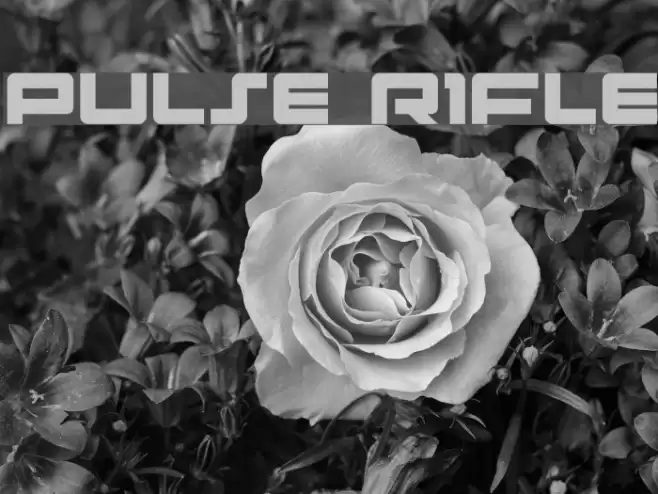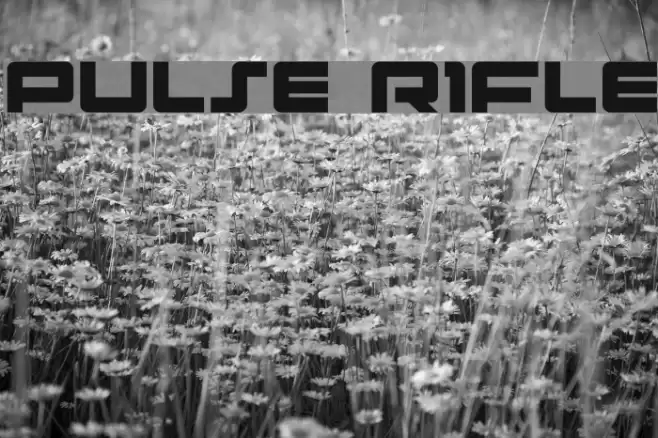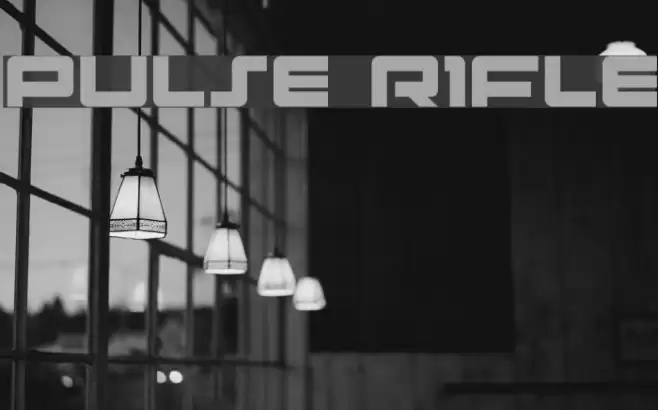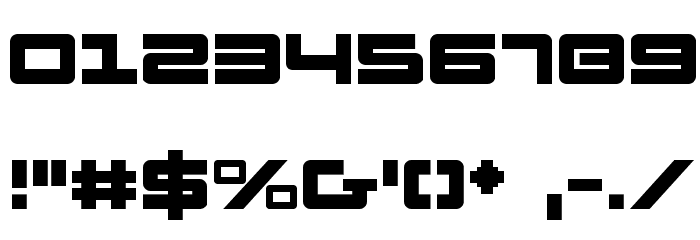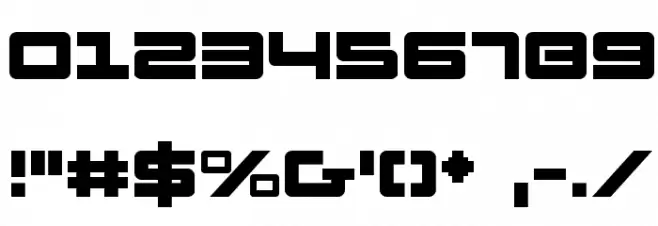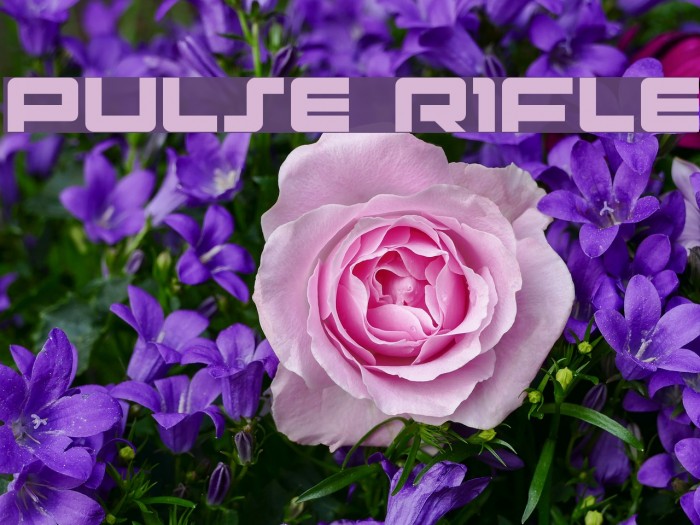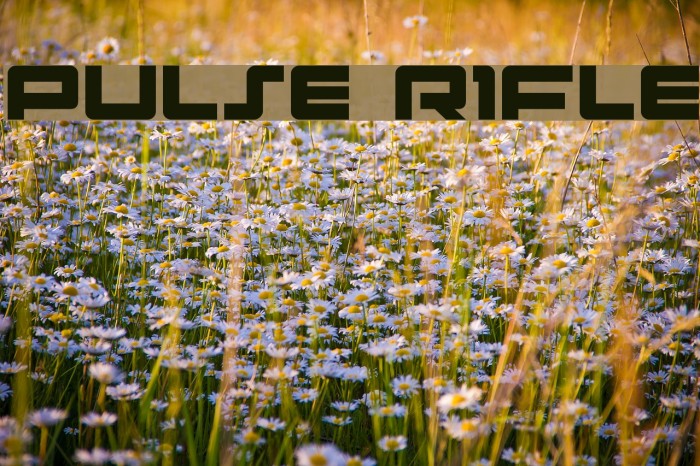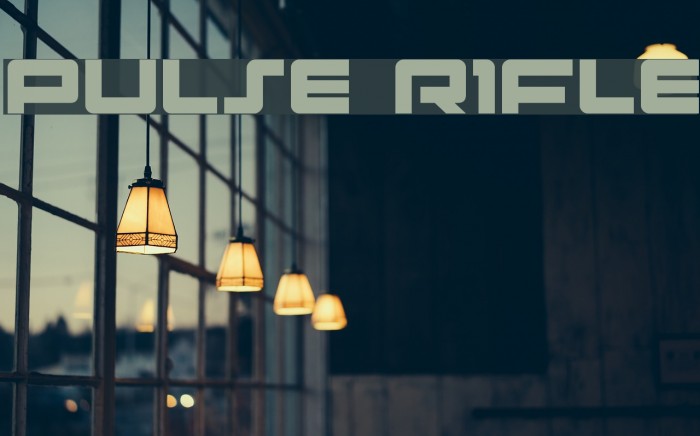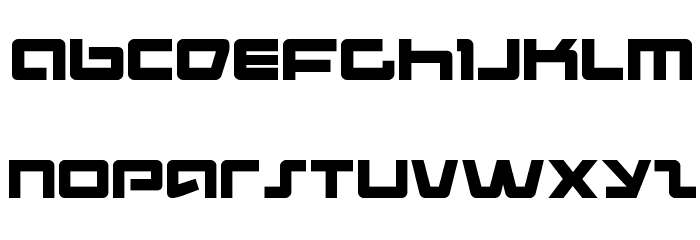
Pulse Rifle Font
Pulse Rifle Description
This font features a futuristic and geometric design, characterized by its bold and blocky letterforms. The characters are constructed with straight lines and sharp angles, giving it a mechanical and industrial feel. The uppercase and lowercase letters maintain a consistent style, with a unique approach to certain characters like 'A', 'R', and 'G' that incorporate cut-out sections, adding to its modern aesthetic. The numerals and special characters follow the same design principles, ensuring uniformity across the font. Its strong presence makes it ideal for attention-grabbing headlines or branding that requires a contemporary and edgy look.
A bold, futuristic font with geometric and industrial design elements from Sci-fi fonts.
- Proposed Projects: Ideal for sci-fi themed projects, tech branding, video game titles, and futuristic posters.